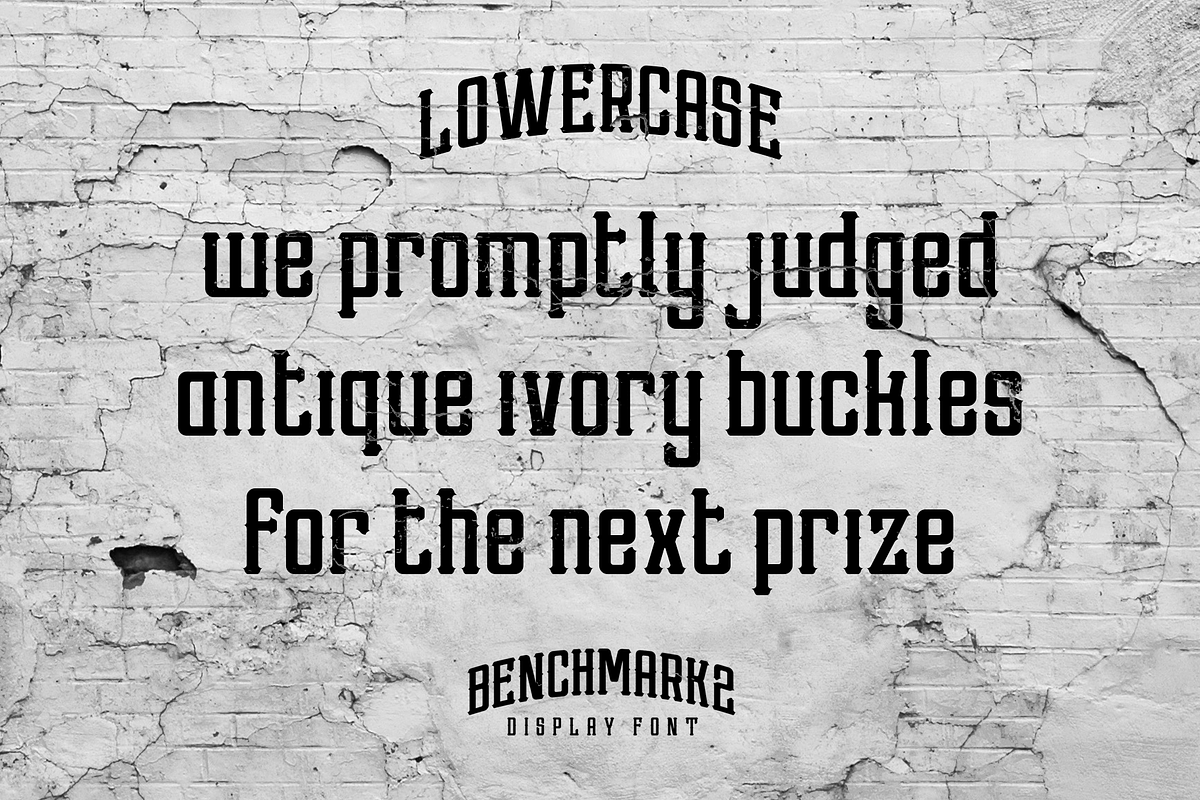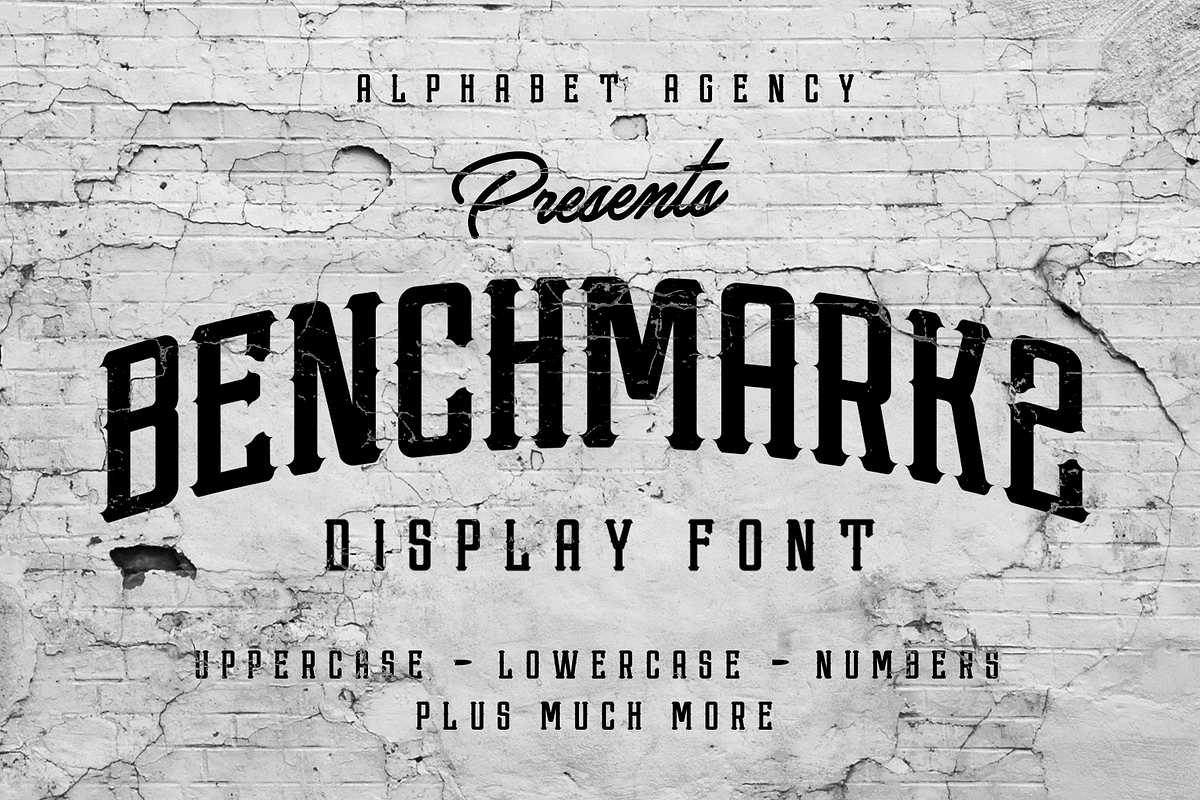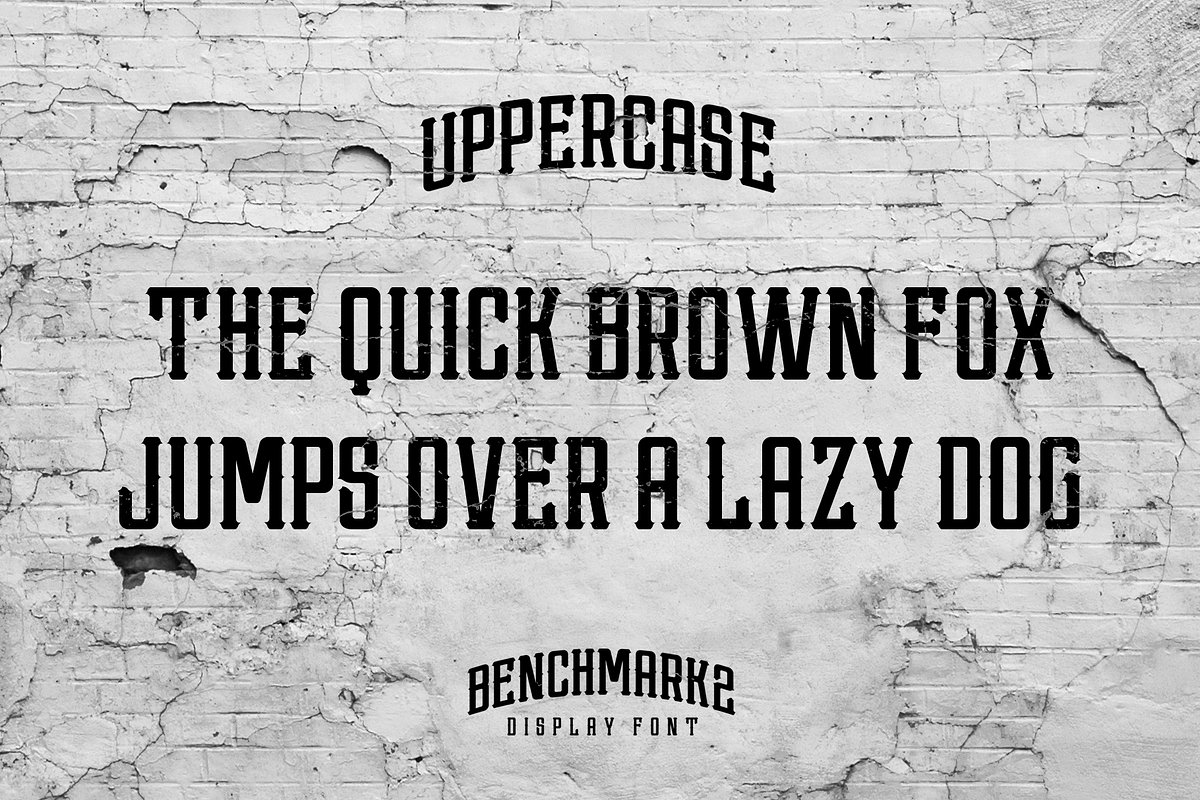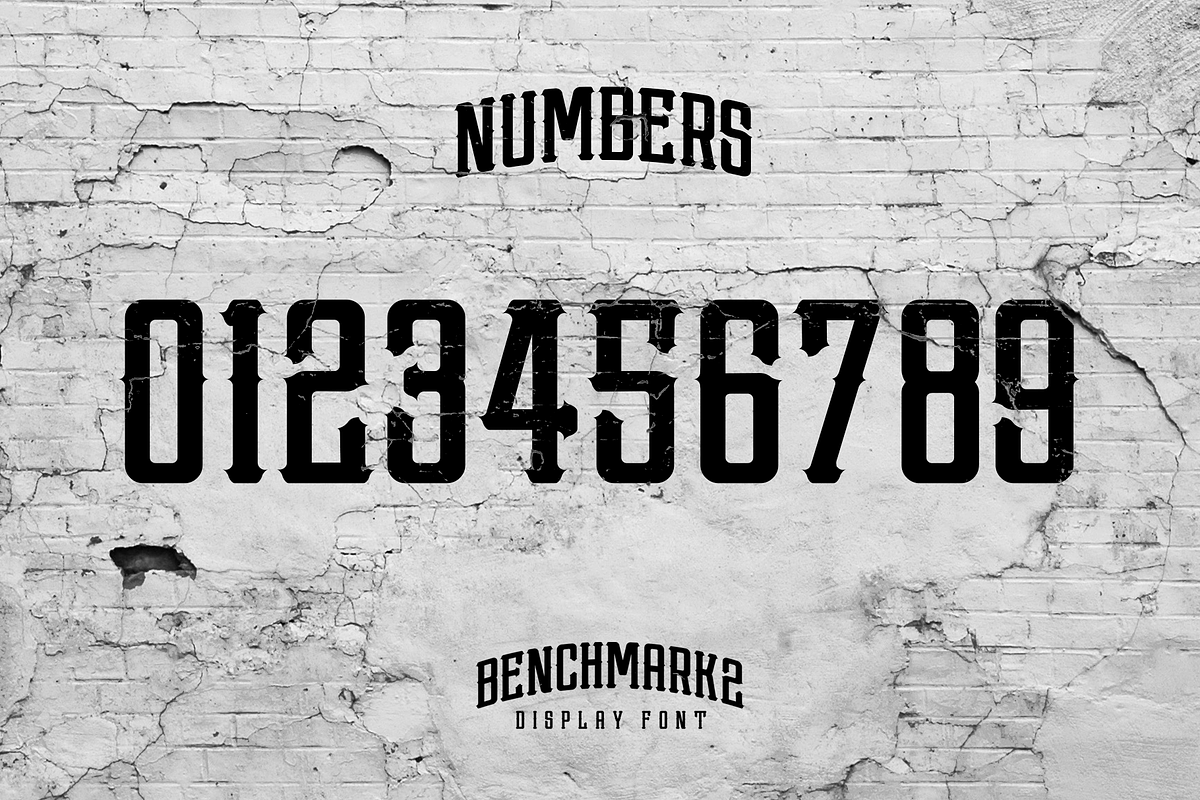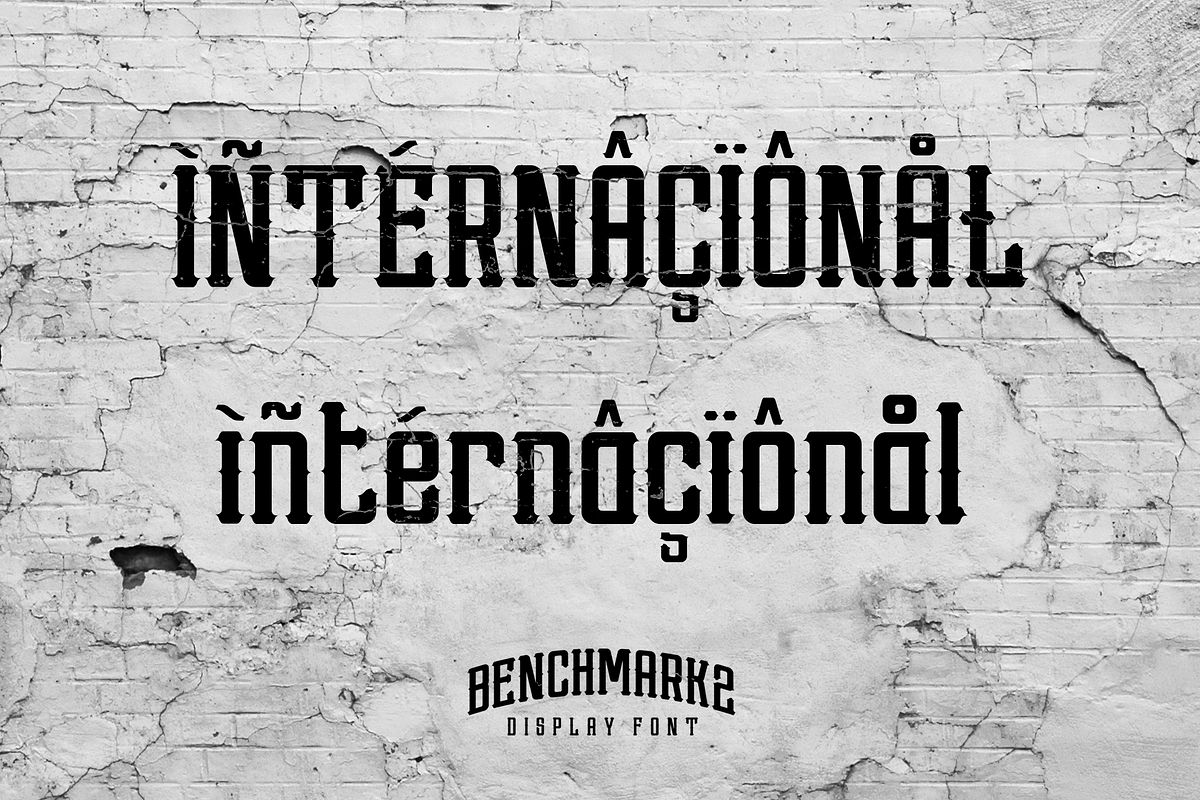
Benchmark2
Benchmark2 is a super cool serif font developed from the popular original Benchmark font. This version has been remastered in the latest font developing software and now the new version includes a lot of additional characters that are not available in the original.
The original font has been used worldwide, used in Hollywood films and in products in popular clothing lines. The font works well in a variety of themes including tattoo, rebellious, street, western and vintage, to name some.